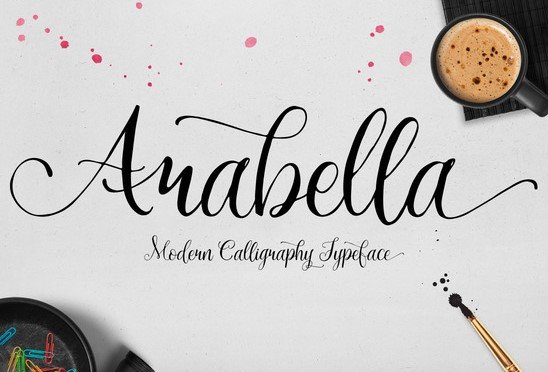
We are now sharing the best and most awesome typeface that is Arabella Font which is a world-class optimized scripted typeface that is available in lots of styles and features that can easily create large projects.
You have lots of opportunities to design any kind of graphic and web work. It has truly optimized characters and letters that will be utilized for an elegant design layout.
The Arabella Font is a famous and amazing typeface that was the product of Bro Luthfi.